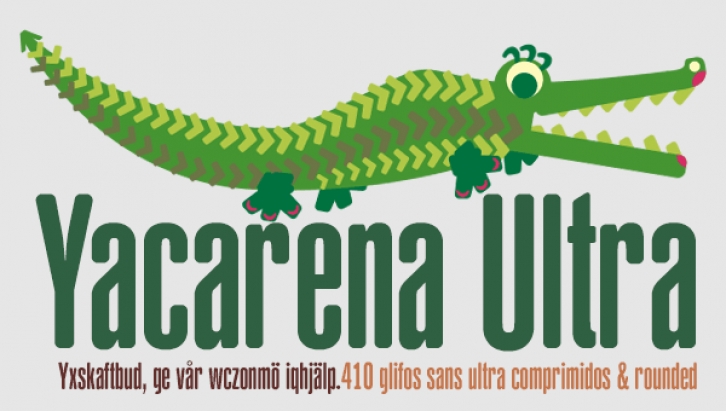
Yacarena Ultra is a beautiful typeface. It is inspired by Helvetica, Univers and Franklin Gothic. It can be used for various purposes such as headings, logos, labels, book covers, posters, invitations, illustrations and much more!